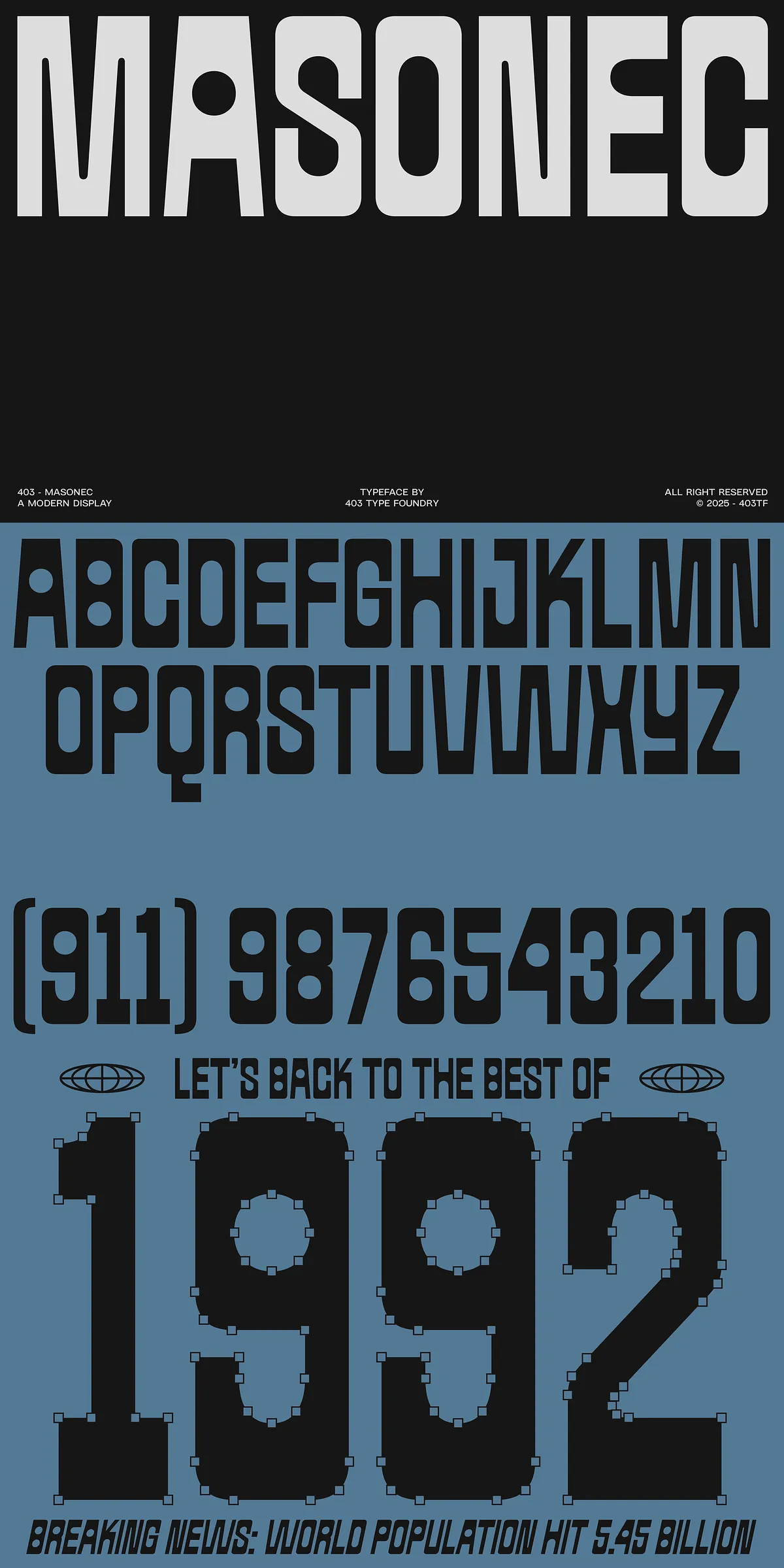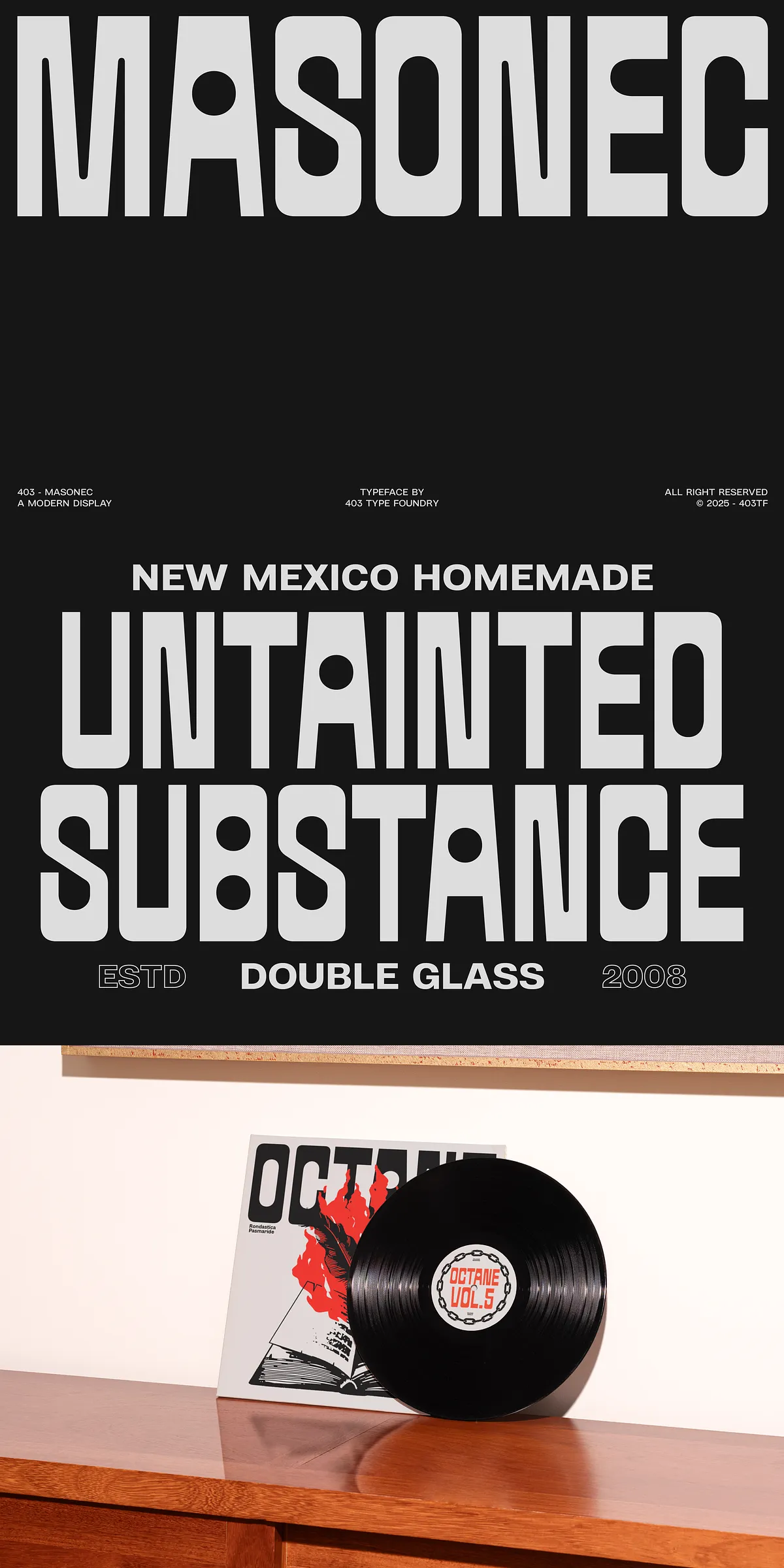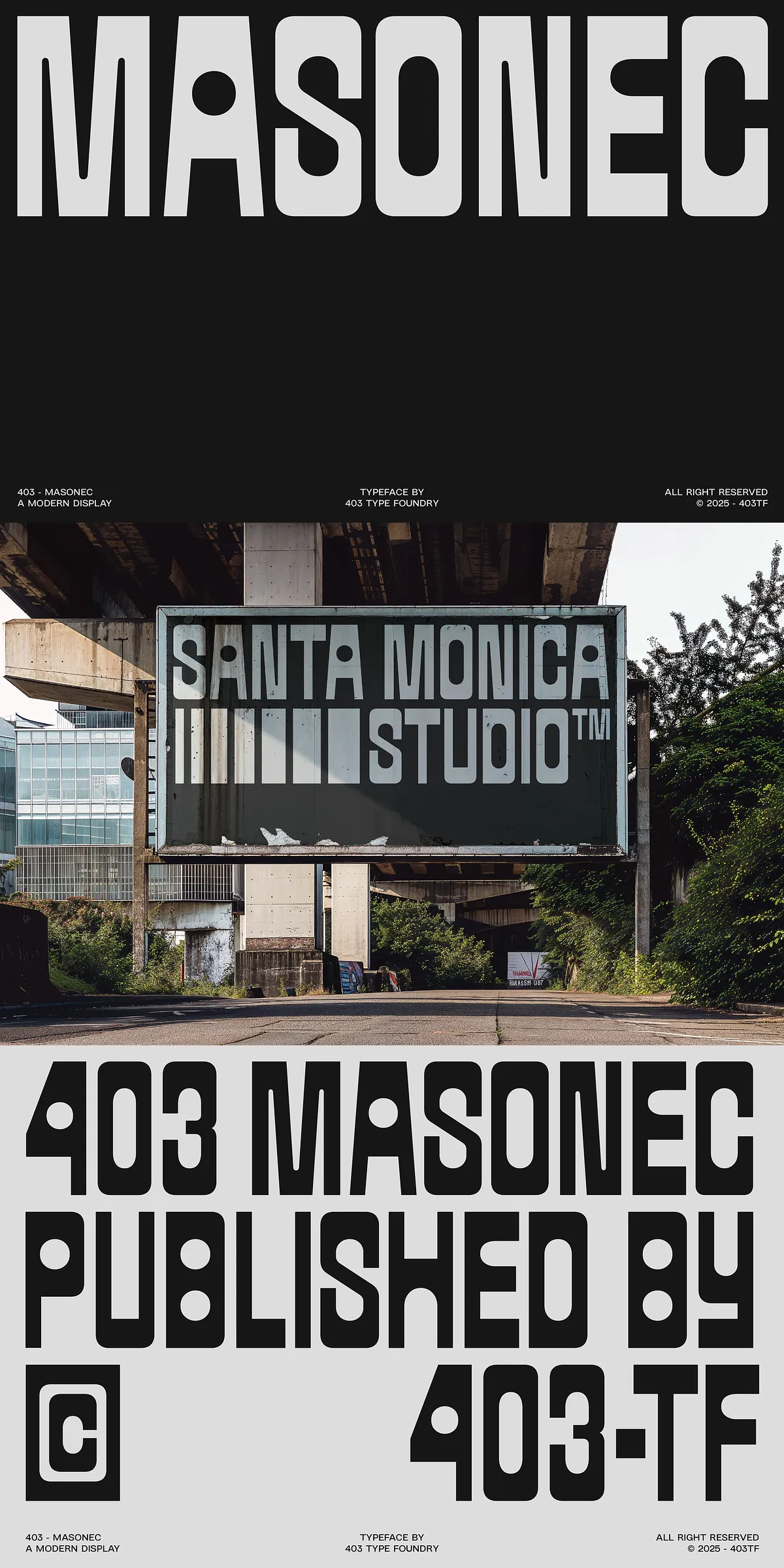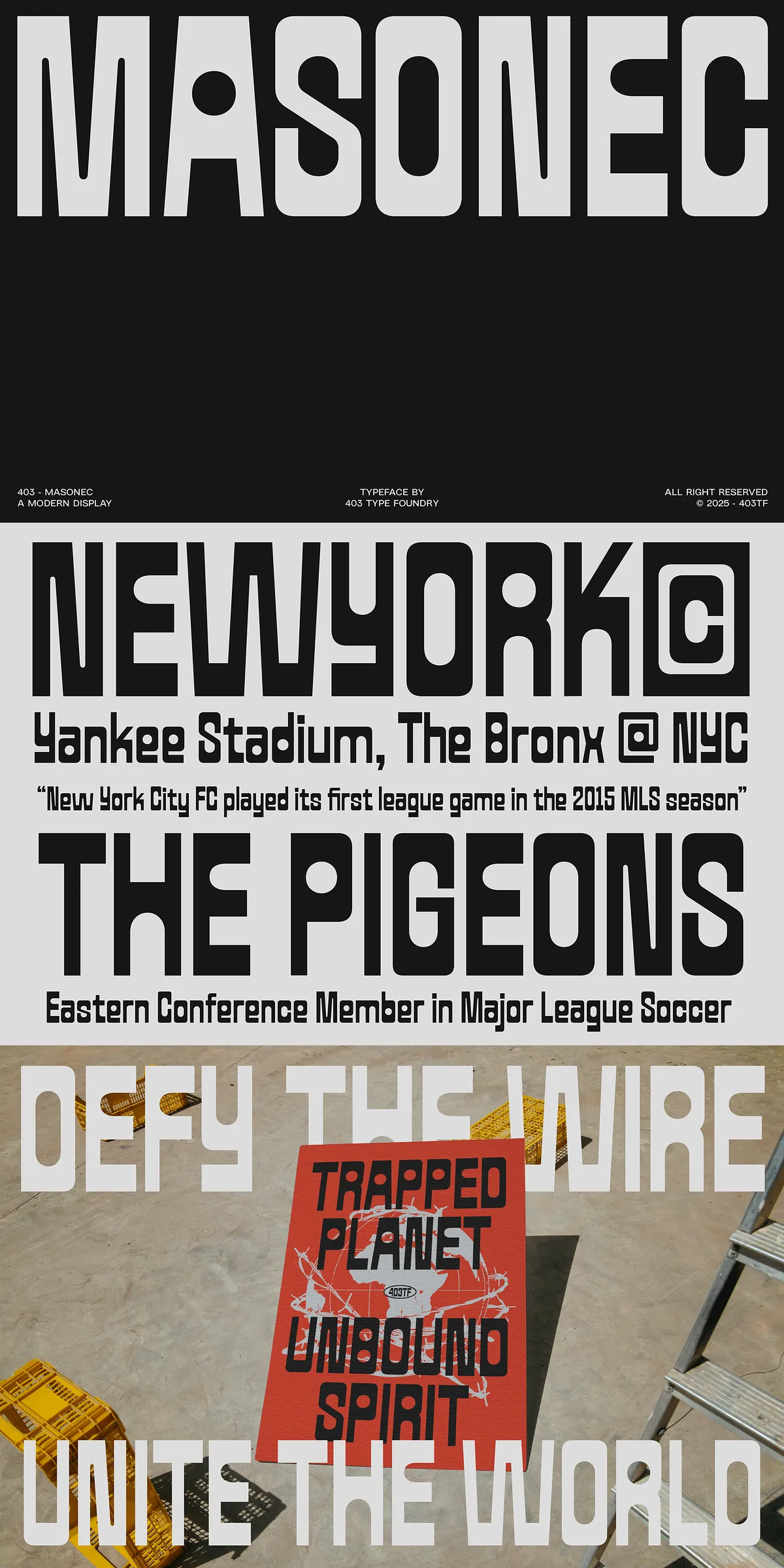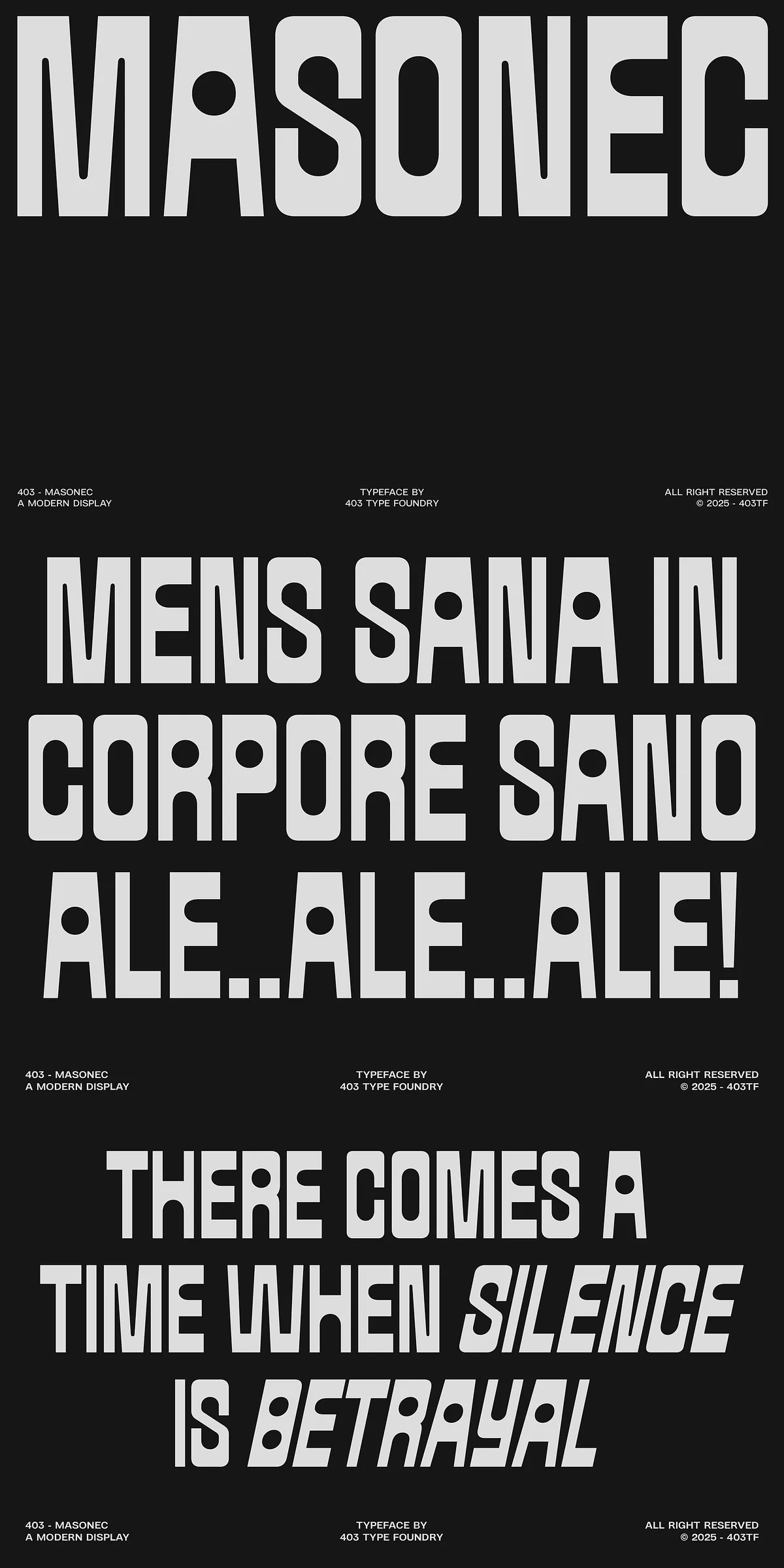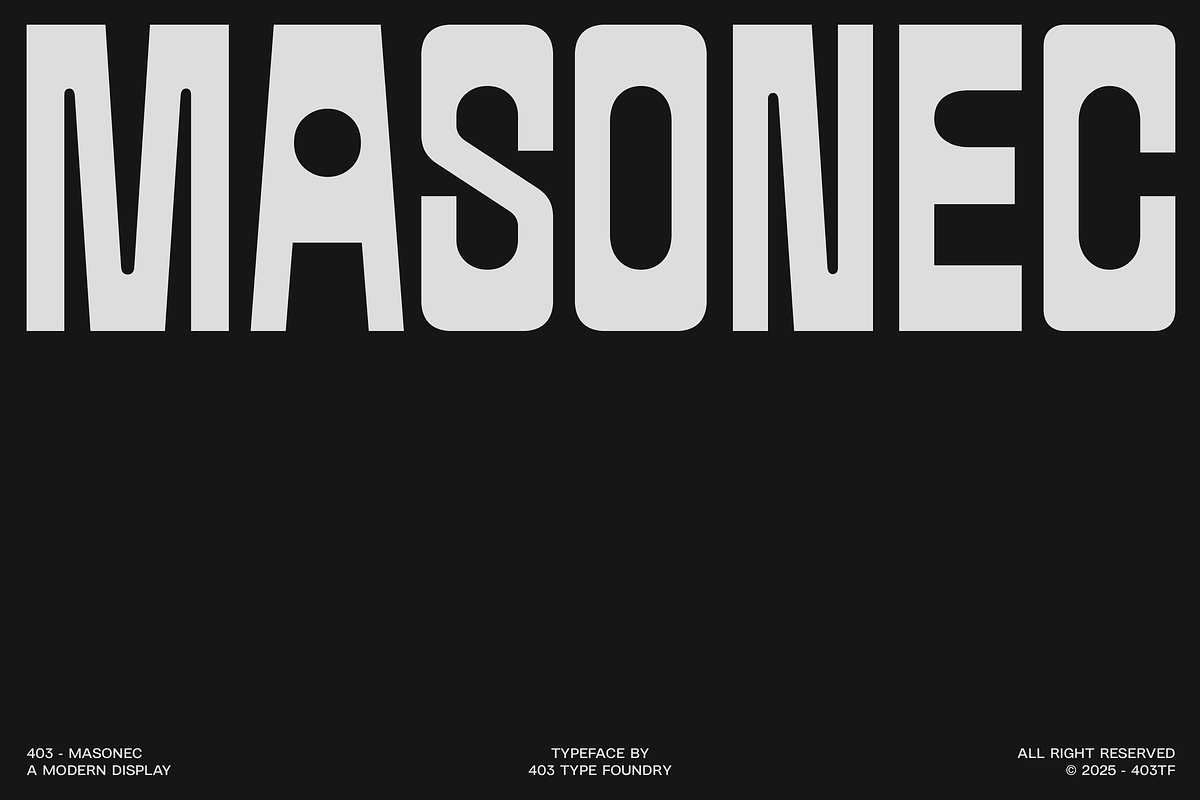
403 Masonec delivers raw typographic authority. This brutalist display typeface combines block-like modular construction with rounded counterforms to create a voice that dominates any visual field. We designed Masonec to push creative work into the foreground: it reads fast at headline scale, anchors brand systems, and commands attention across print, apparel, and motion. Use it when subtlety would dilute your message—Masonec exists to amplify and clarify.
Industrial Roots Meet Modern Typographic Power
Masonec draws direct inspiration from industrial signage, brutalist architecture, and strict grid systems. Each character behaves like a sculpted unit: strong vertical rhythm defines the skeleton while circular counters introduce measured contrast and breathing room. The result is a modular, almost monospaced temperament that still feels purposeful and contemporary. Designers will find its presence particularly effective for transit graphics, editorial covers, album art, and streetwear identity systems.
Bold Visual Language For High-Impact Applications
Use 403 Masonec when you need a headline that reads from a distance and a logotype that registers at a glance. Heavy-weight applications—posters, billboards, and merch—benefit from Masonec’s dense structures and confident proportions. At the same time, the typeface’s circular counterforms prevent the design from becoming visually oppressive, offering clarity even at very large sizes. Masonec does not whisper; it declares your content with purpose and precision.
Versatile Styles, Robust Glyph Support, And Practical Details
403 Masonec ships in two complementary styles—Regular and Slanted—so you can add forward motion and emphasis without altering weight. The family contains over 500 glyphs, supporting extended Latin accents, symbols, arrows, and basic mathematical characters. Numerals, punctuation, and additional symbols are production-ready. Built with a grid-based construction, Masonec offers predictable spacing and reliable behavior across digital and print workflows.
Technical Features That Speed Production
- Two styles: Regular and Slanted for dynamic typographic rhythm.
- Comprehensive glyph set: 500+ glyphs covering Latin languages and symbols.
- Grid-based vertical construction for consistent spacing and layout control.
- Clear numerals, punctuation, and useful symbols included for production.
- Optimized for display sizes where legibility and impact matter most.
Ideal Use Cases And Creative Recommendations
403 Masonec thrives where bold structure meets cultural edge. Apply it across these high-impact scenarios:
- Branding and logotypes: Combine blocky letterforms with alternates to forge memorable identities.
- Posters and covers: Use large-scale Masonec to create arresting compositions and strong focal points.
- Apparel and merch: Its modular geometry prints crisply and reads across fabric textures.
- Editorial headlines and magazine displays: Pair with a neutral body face for maximum hierarchy and clarity.
- Motion and hero web sections: Leverage the Slanted style for kinetic titles and promotional animations.
Practical Styling Tips For Designers
To maximize Masonec’s impact, use generous letterspacing and tight vertical rhythms when composing multi-line headlines. Combine heavy display weights with lighter supporting typefaces to maintain hierarchy. For branding, restrict alternates to key characters to preserve recognizability across small-scale applications like favicons or social avatars.
Masonec supports up to 270 Latin-based languages, making it suitable for multinational branding and editorial use. Before deployment, verify licensing terms to match your intended use—print runs, commercial merchandise, or digital distribution may require specific licensing. The font installs cleanly on macOS and Windows and integrates with standard design apps and webfont services. When preparing assets for production, confirm that the vendor supports the selected glyphs and any OpenType features you intend to use.